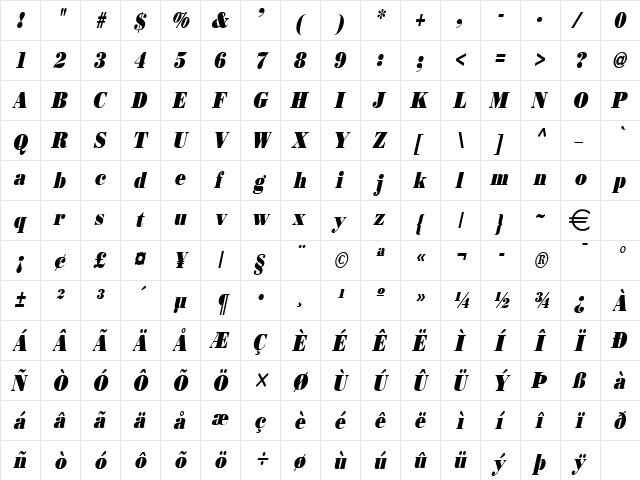
BeauCondensed Italic
Design Context for BeauCondensed Typeface
BeauCondensed is a composed and adaptable typeface that performs quietly and consistently across a wide range of design contexts. The slanted form adds forward momentum and visual energy. Its narrow stance lets it pack a punch even in space-constrained designs.
Pro Tip: Try BeauCondensed for annotation and caption copy alongside an upright companion — the contrast in angle creates a dynamic but ordered typographic system.